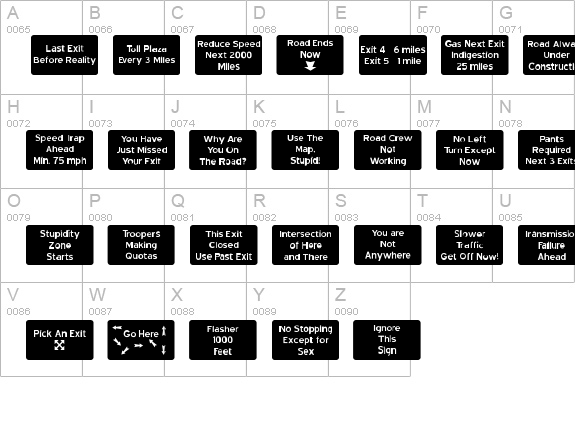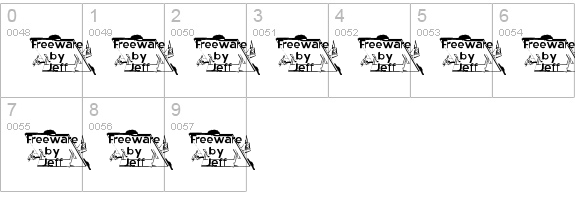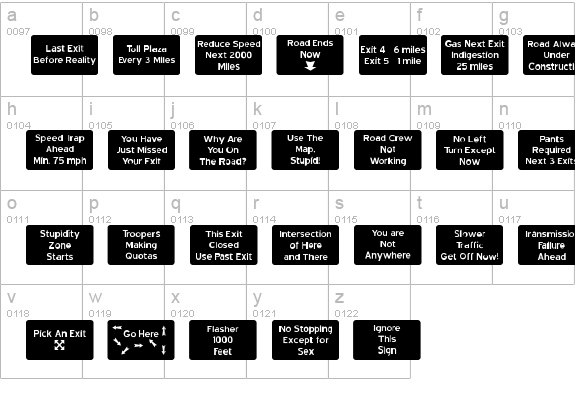
Road To Nowhere JL font is a stylish and modern typeface that exudes a sense of adventure and creativity. Its edgy yet clean design makes it perfect for a variety of projects, from branding to graphic design and beyond. The unique curves and sharp angles of this font add a dynamic touch to any text, making it stand out and grab attention. What's even better is that Road To Nowhere JL font is completely free to download at FontsMarket.com. This means you can easily access this versatile font and use it in your projects without any cost. Whether you're working on a personal project or a professional design, Road To Nowhere JL font is sure to elevate your work and give it a fresh, modern look. Download it today and start creating stunning designs with this free and stylish font.